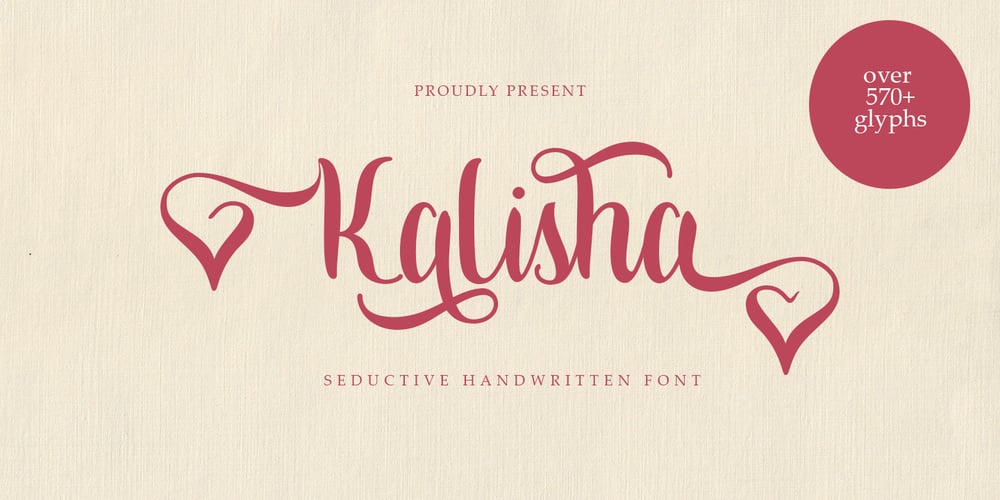
Kalisha script
Kalisha script font
Kalisha script Font Family was designed by Ak Mal and published by Akrtype Studio. Kalisha script contains 1 styles and family package options. Kalisha Script was built 570+ glyphs, with OpenType features and includes many beginning and ending swashes, numbers, punctuation, and it also supports other languages.You can toggle between both the regular and swashes font to get a handwritten, professional look.To enable the OpenType Stylistic alternates, you need a program that supports OpenType features such as Adobe Illustrator CC, Adobe Indesign & CorelDraw , Microsoft Word 2010 or later versions.Don’t hesitate to drop me a message if you have any issues or queries